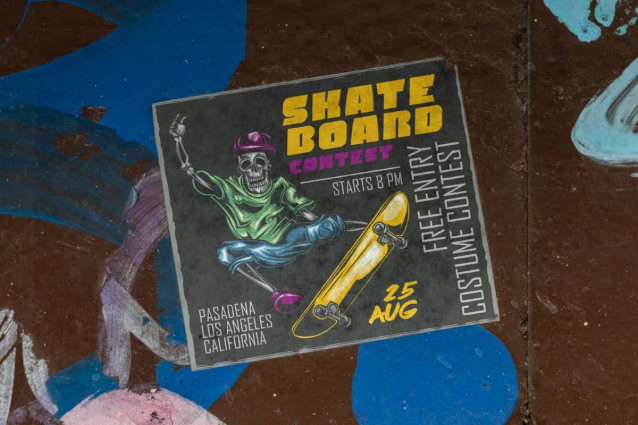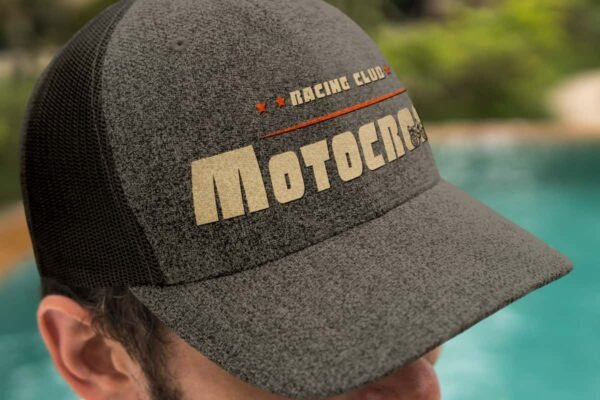
Celebrate Victory Font
Celebrate Victory Font is a bold and boxy racing font by RaisProject. This font has a casual style with a unique and slightly slanted touch to make it impressive. It will be great for custom design, poster, label, signage, stationery, product packaging, quotes, brand image, advertisement, invitation, marketing material, website page, and more!
Celebrate Victory Font includes a full set of ALL CAPS for Uppercase and Lowercase Letters, Numerals, and large range of Punctuation. This cool font will be suitable for various industries, such as sports, automotive, fashion, game, barber shop, cafe, event or festival, photography, printing, publishing, etc.